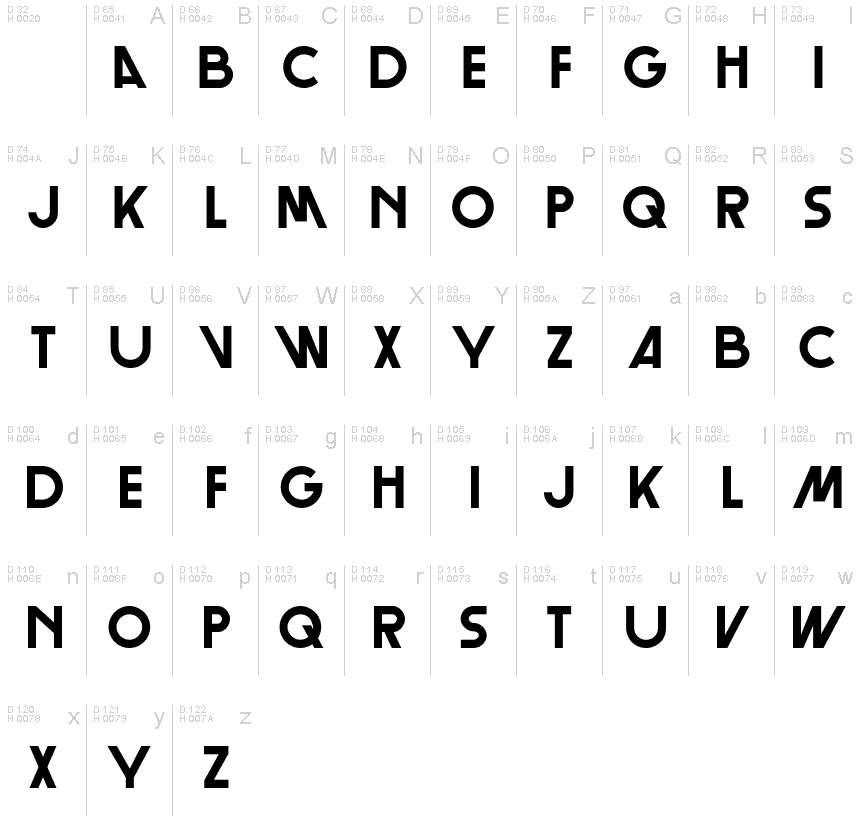
Independent Designer Regular
Independent Designer, a modern sans serif font created by Vladimir Nikolic, exudes creativity and versatility. With its semi-bold weight, this font is perfect for a wide range of projects that require a contemporary and sleek aesthetic.
Its clean lines and balanced proportions make it suitable for branding designs, logo creations, magazine layouts, packaging designs, and website headers. The Independent Designer font adds sophistication and professionalism to any project while maintaining an air of uniqueness.
Let your design stand out with this stylish and adaptable typeface.
"Independent Designer" comes in Regular and Italic!
Its clean lines and balanced proportions make it suitable for branding designs, logo creations, magazine layouts, packaging designs, and website headers. The Independent Designer font adds sophistication and professionalism to any project while maintaining an air of uniqueness.
Let your design stand out with this stylish and adaptable typeface.
"Independent Designer" comes in Regular and Italic!